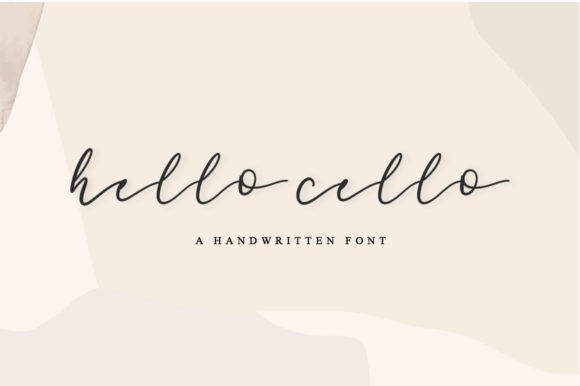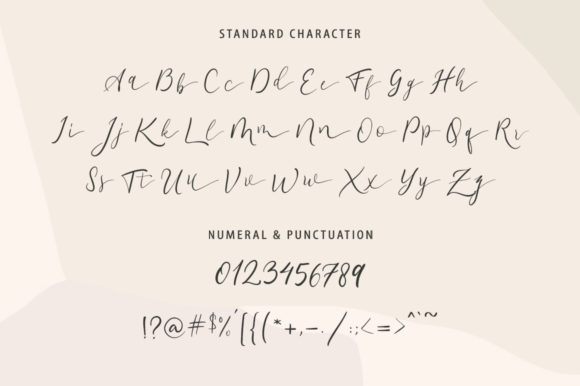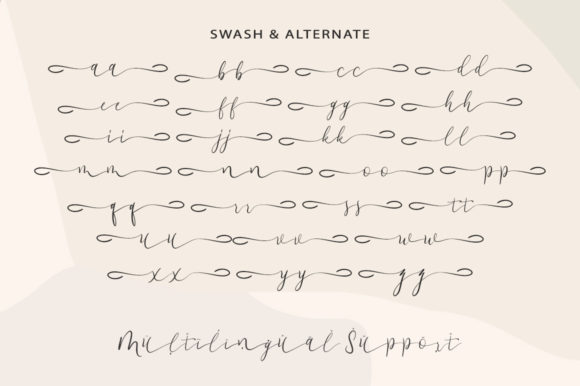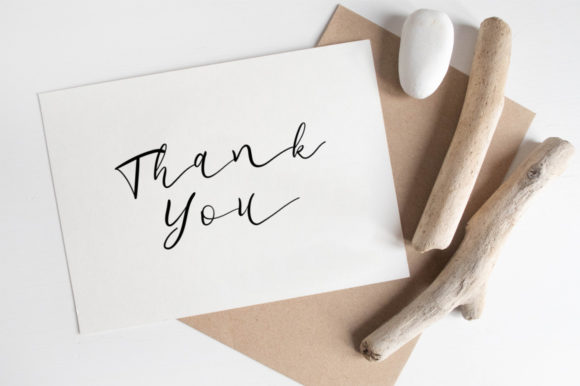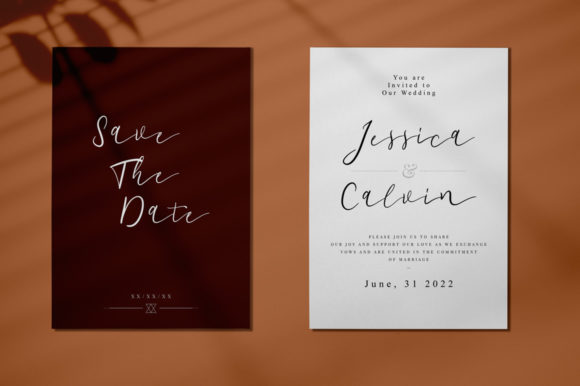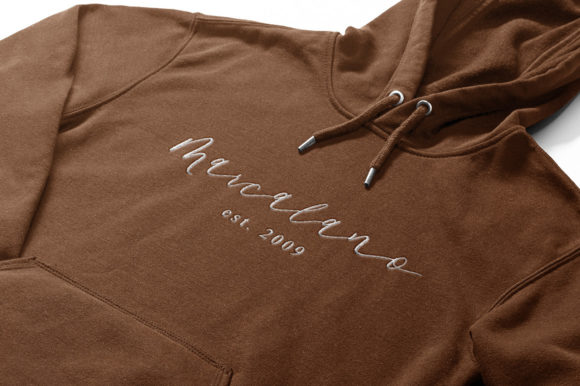
Hello Cello Font
About Hello Cello Font
Hello Cello is a delicate and elegant handwritten font. Its distinct and well balanced letters make this font a masterpiece. This font is PUA encoded which means you can access all of the glyphs and swashes with ease!